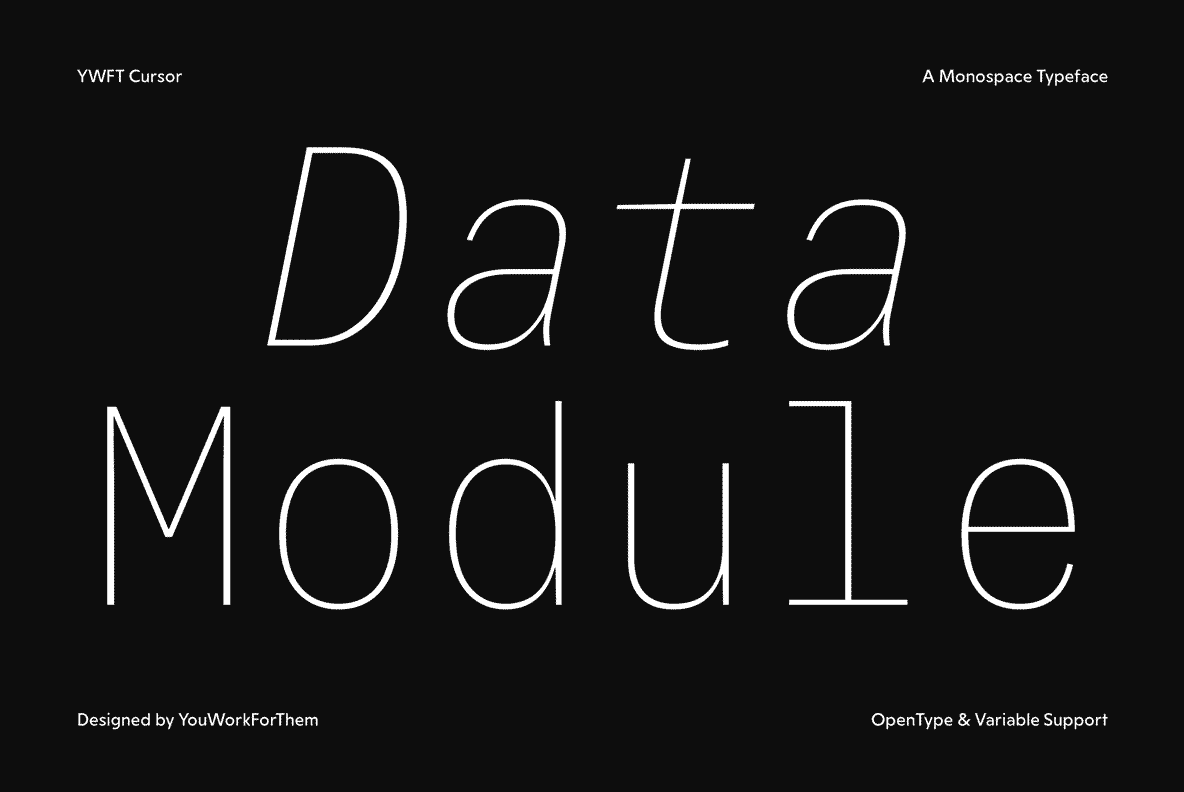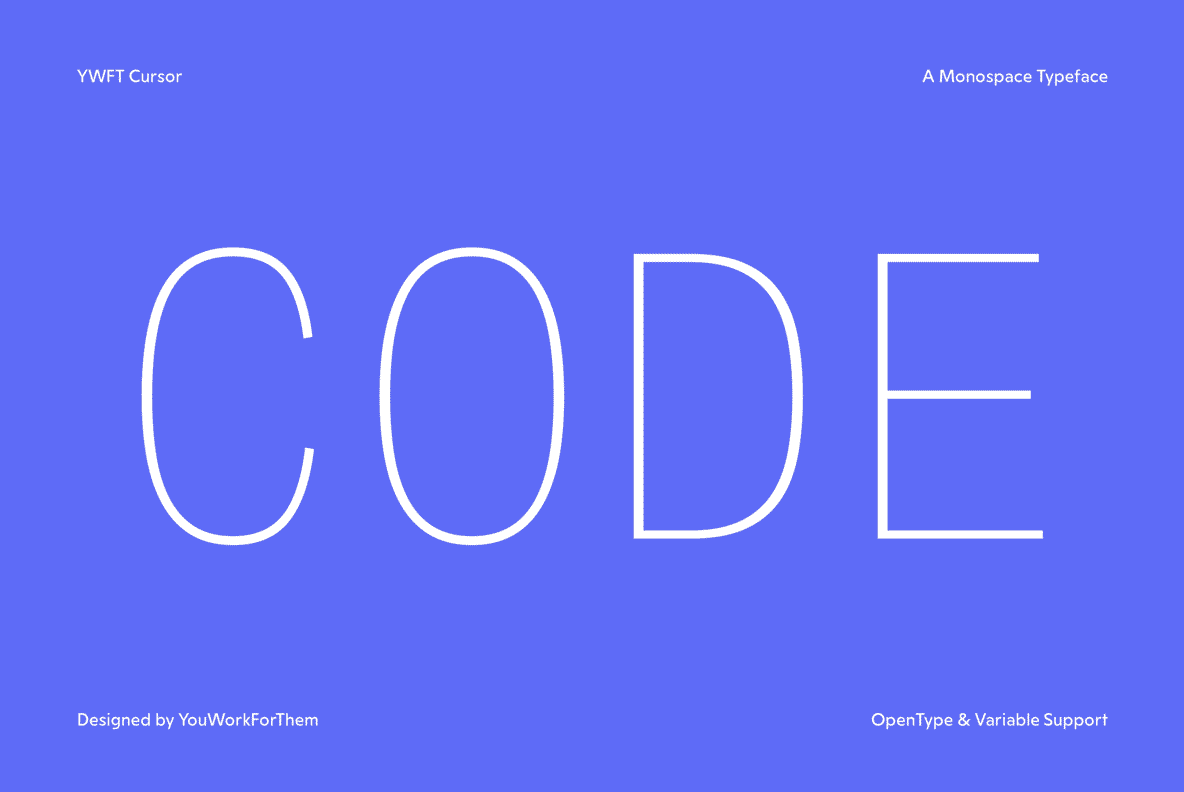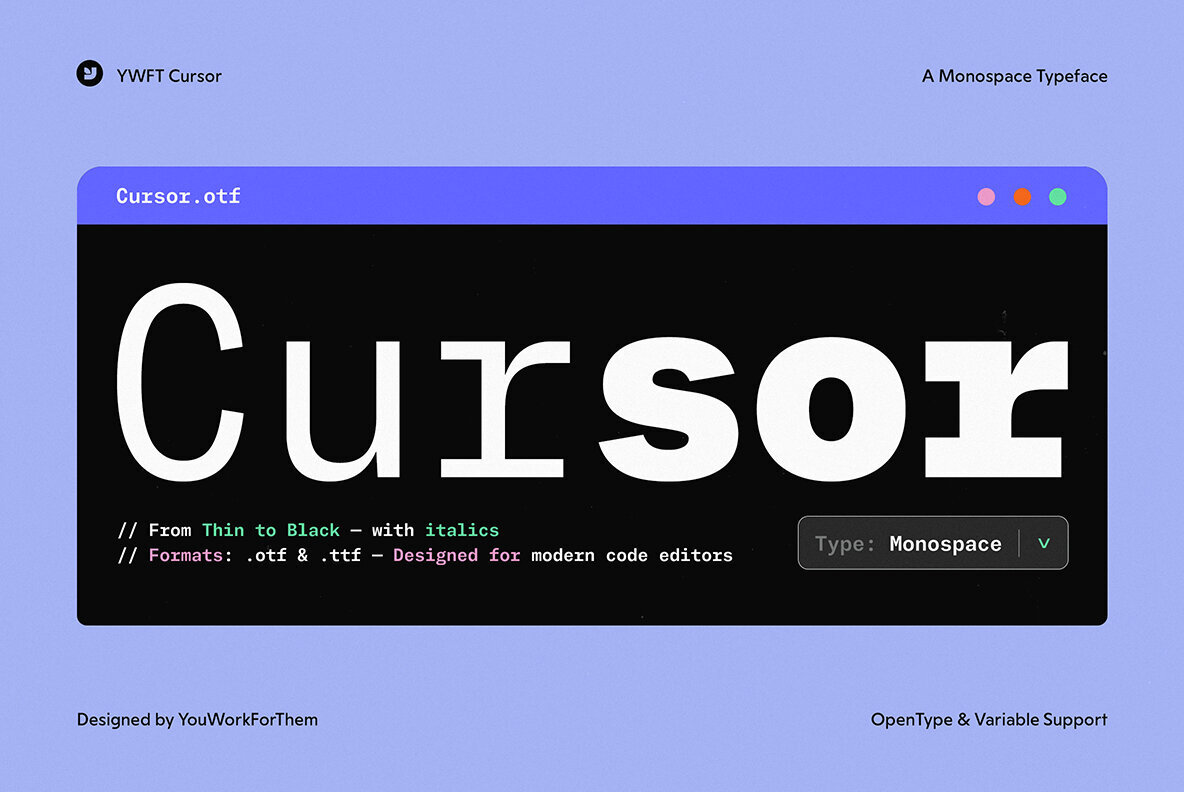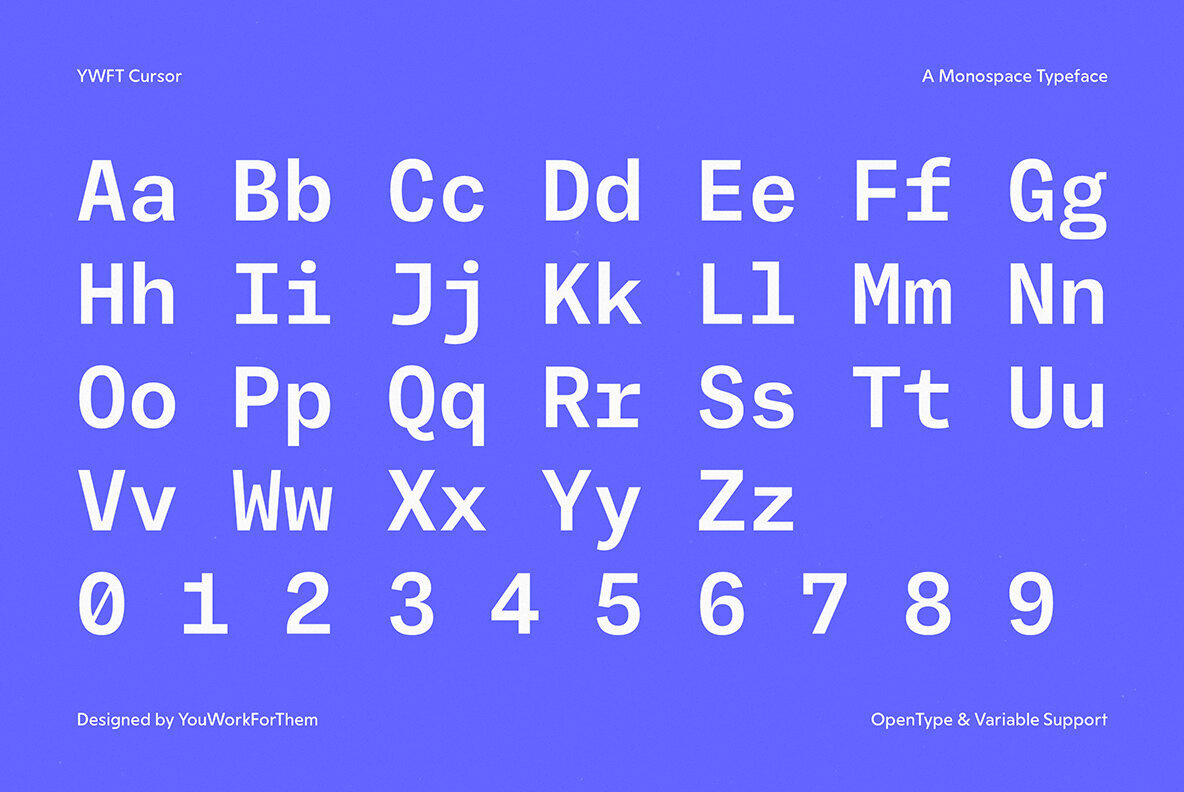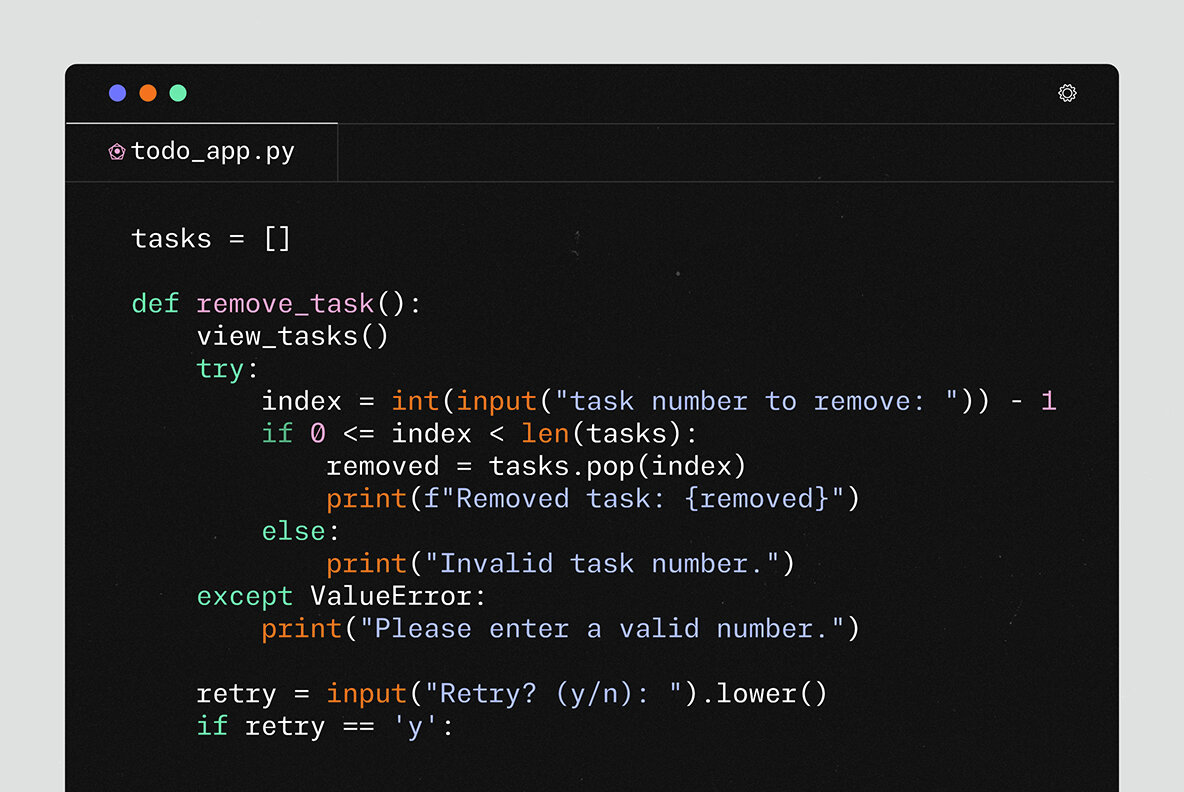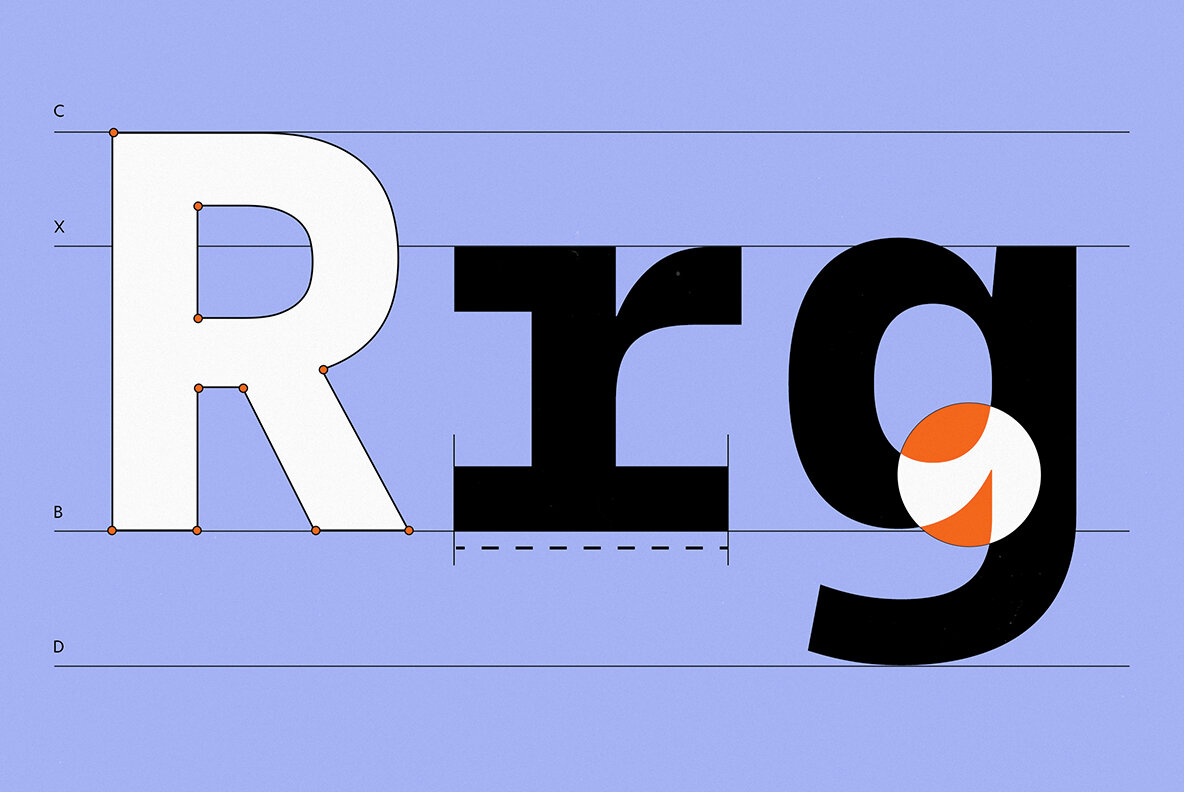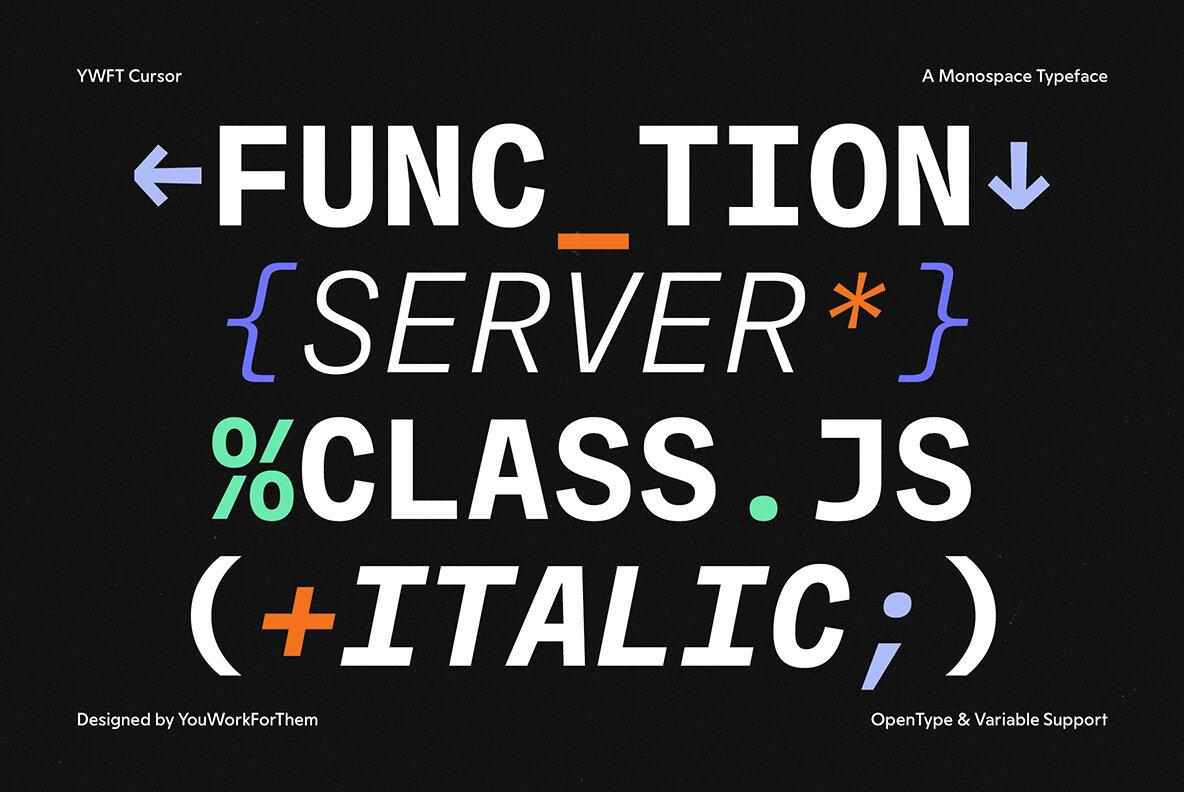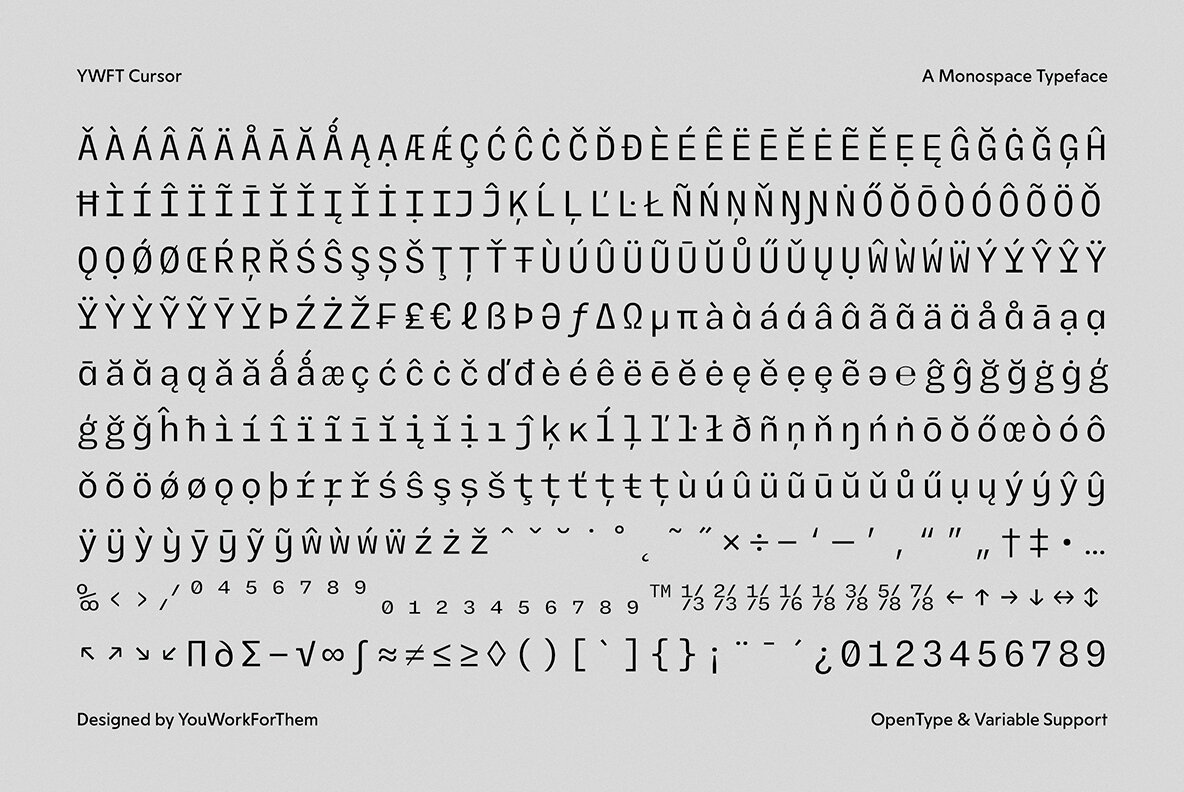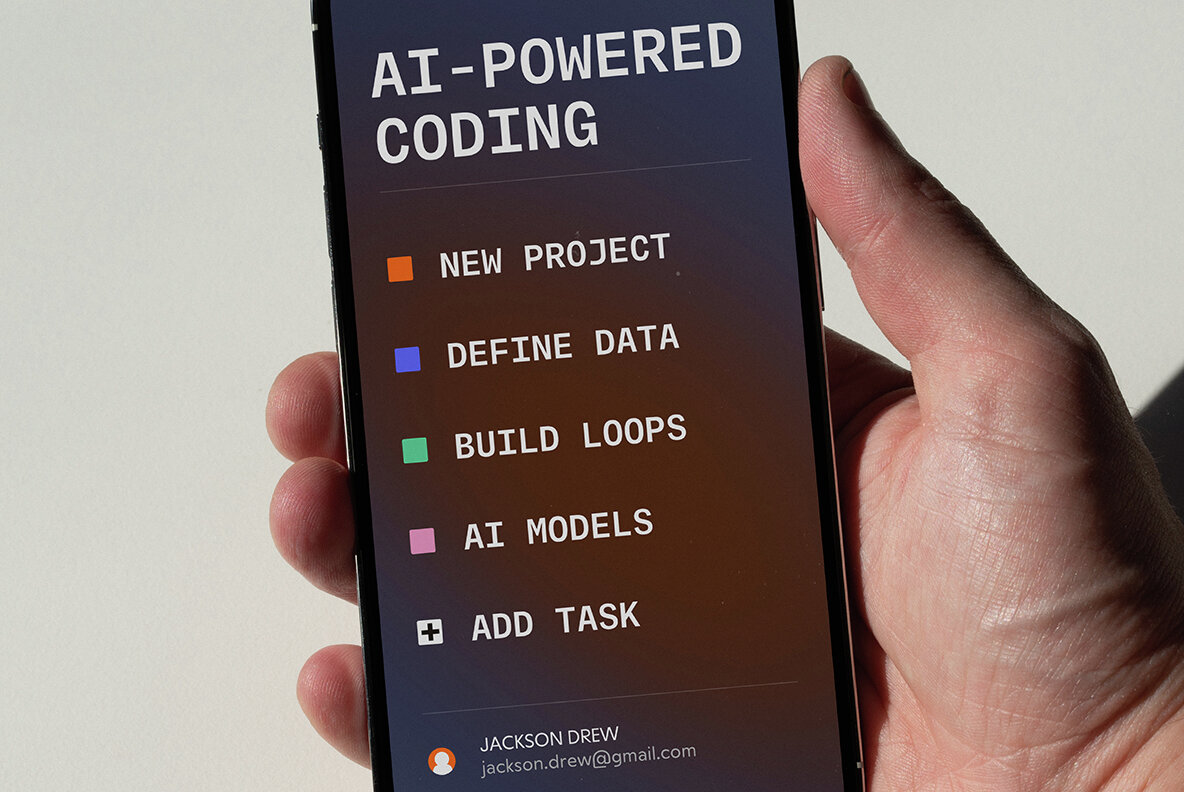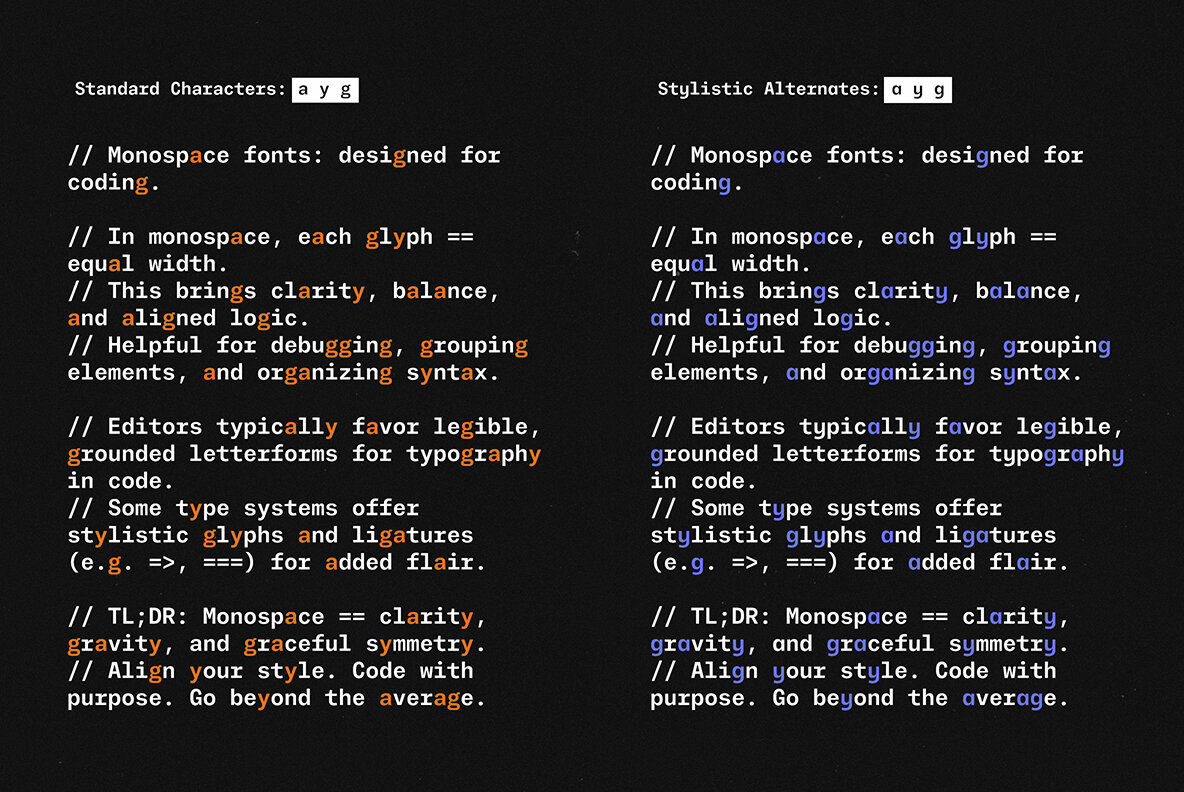
YWFT Cursor Mono Font
YWFT Cursor Mono isn’t a revival. It wasn’t pulled from dusty archives of 1980s system fonts or cobbled together from outdated screen specs. This is a monospace typeface designed now, for how designers actually work today—on high-resolution displays, inside modern design tools, across complex digital environments, and within realistic budgets. Forget the clunky proportions and visual fatigue of legacy monospace fonts. Cursor Mono brings clarity, balance, and sharp modernity to every line of text. Its characters are engineered for precision and legibility, whether you’re reviewing code in a terminal or building interface components in Figma. 9 distinct weights with matching italics for full typographic flexibility 18 styles in total, plus a variable font for responsive use 500+ glyphs per font with multilingual support Two free demo fonts (Regular and Italic) to try before you commit This is a font that performs just as beautifully in UI layouts, web apps, and editorial systems. Cursor Mono’s rhythm and structure bring a calm consistency to motion graphics, product mockups, and any digital typography where spacing and alignment matter. Crafted to feel natural in code editors, design grids, and layout frameworks, making it ideal for creative technologists, developers, and visual designers who code. Where old monospace fonts were built around CRT displays and system constraints, Cursor Mono is shaped by the needs of retina screens and scalable interfaces. This is a code font that scales—visually, technically, and creatively. Designed exclusively for YouWorkForThem, Cursor Mono comes with licensing that matches modern needs: simple, no-subscription pricing with personal, commercial, and enterprise options. No bloated fees. No legacy pricing models. Just a clean, professional type system that’s ready to go. You deserve better than yesterday’s technology repackaged at tomorrow’s price. Cursor Mono is the future-facing monospace solution—made for today’s creators, priced for today’s realities, and built to meet the visual demands of the digital landscape. Exclusively available at YouWorkForThem, Cursor Mono is the monospace font for designers who think in code, create in pixels, and design with purpose. Additional products used for slideshow images:YWFT Cursor Mono: A Programming Font Built for Today’s Digital Designers
Optimized for the Way You Design Today